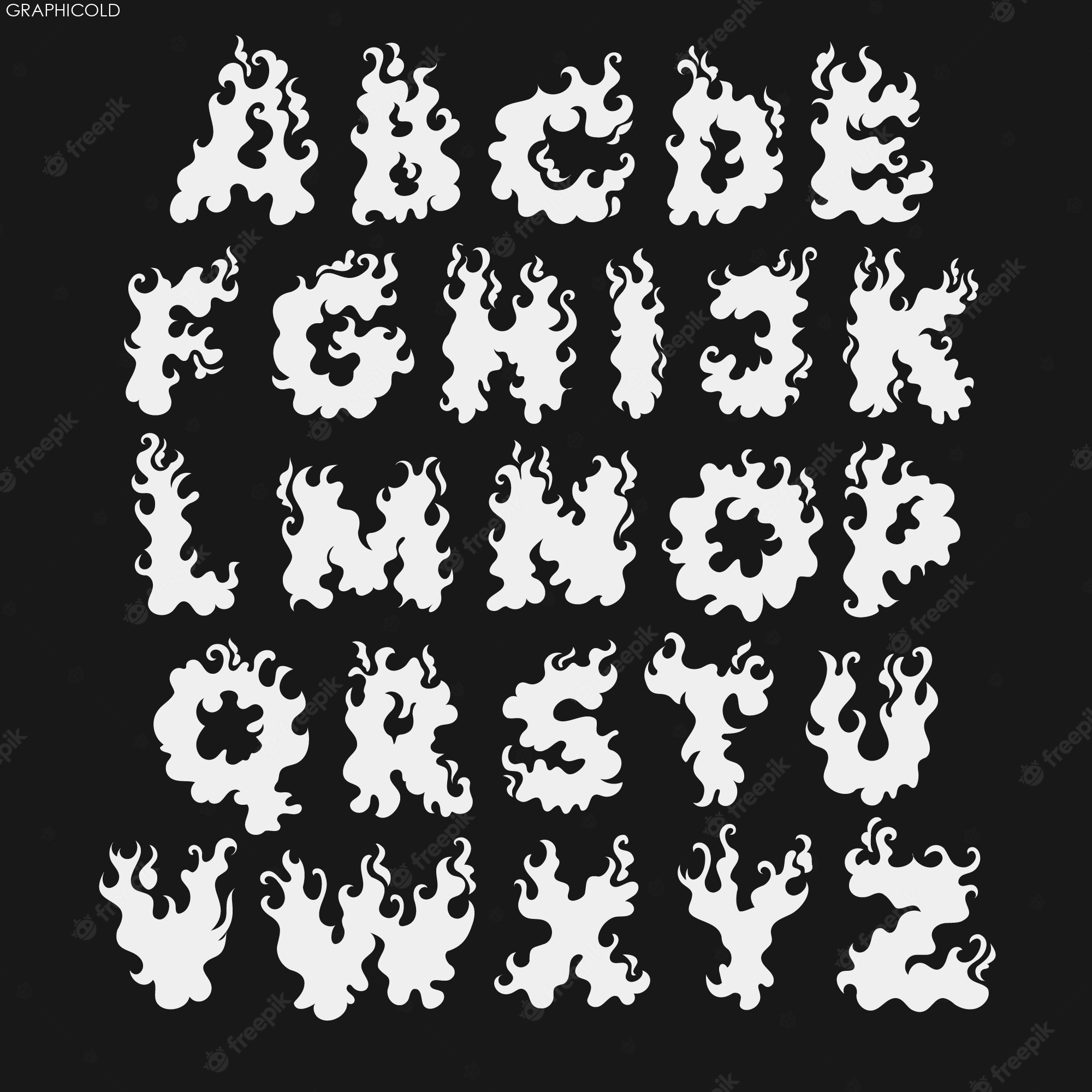
smokey font: A Ruggedly Bold Typeface
Smokey Font is a typeface that exudes ruggedness and boldness. Created by designer Alit Suarnegara, this font is perfect for conveying a sense of strength and power in your designs. It is an all-caps font with a strong and sturdy appearance that makes it perfect for use in logos, headlines, and posters.
The design of Smokey Font is based on the vintage typography of the 1940s and 1950s. It features a rough and textured appearance that gives it a worn-out look. The letters are thick and bold, making them stand out and grab the viewer’s attention. The font also includes various ligatures, making it easy to customize and use in different design contexts.
One of the unique features of Smokey Font is its versatility. It can be used in a variety of design applications, from commercial branding to editorial design. Its bold and rugged appearance makes it particularly suitable for use in masculine and industrial designs. This font is also a great choice for designers who want to create a vintage or retro aesthetic.
Smokey Font is available in both regular and italic versions, making it easy to add emphasis and variation to your designs. Its rough and textured appearance gives it a natural and authentic look, making it ideal for use in designs that require a sense of authenticity and genuineness.
In summary, Smokey Font is a bold, rugged, and versatile typeface that is perfect for conveying a sense of strength and power in your designs. Its vintage-inspired design and textured appearance make it perfect for use in a variety of design contexts, from commercial branding to editorial design. With its all-caps lettering and various ligatures, Smokey Font is a font that is both customizable and easy to use.